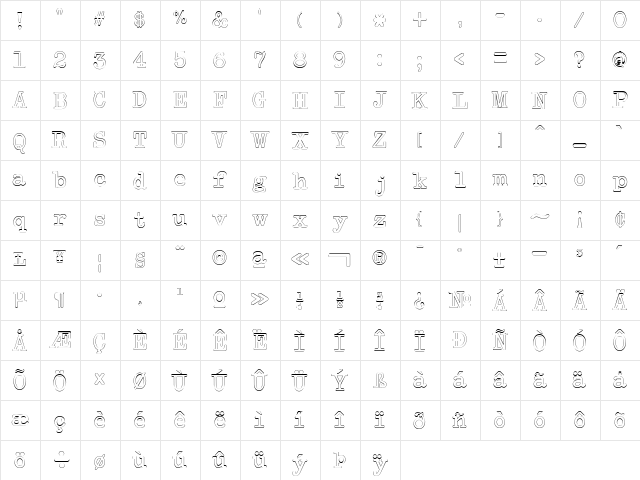
NeoBulletin Outline Regular
| Foundry | Iza W, IntellectaDesign |
Design Context for NeoBulletin Outline Typeface
NeoBulletin Outline brings ornamental detail and strong personality to headlines and identities, where visual impact matters more than quiet functionality.
Font Pairing: Pair with a clean neutral sans-serif for body copy to let NeoBulletin Outline's character lead without overwhelming the composition.
Pro Tip: Treat NeoBulletin Outline as the centrepiece of your typographic hierarchy. One strong heading set in a decorative face can carry an entire layout.